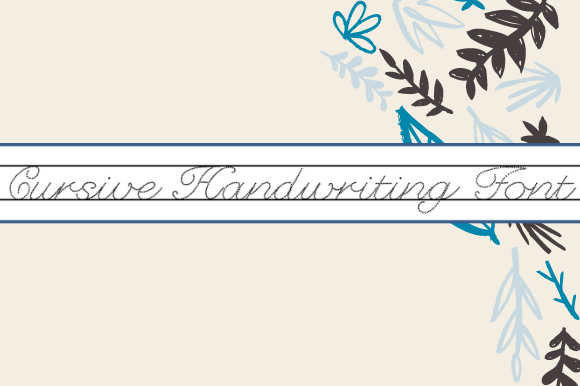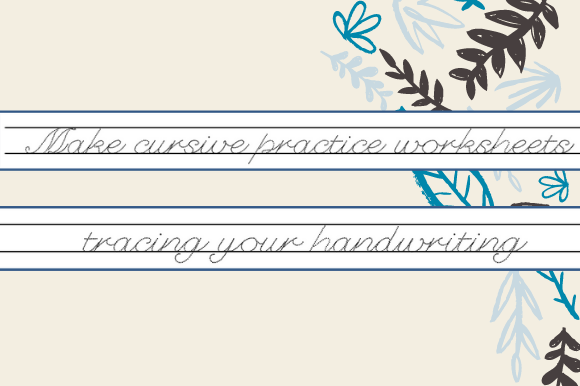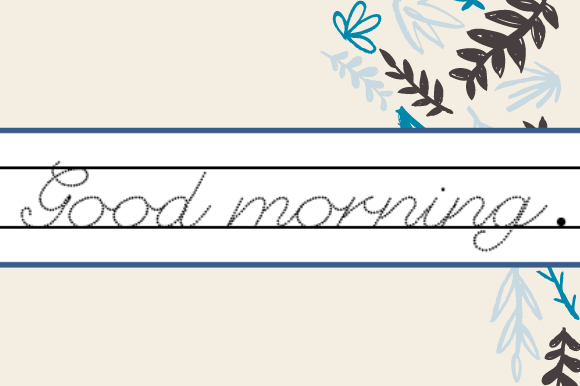
Cursive Handwriting Font
About Cursive Handwriting Font
“Cursive Handwriting”: Adding Delicacy and Style to Your Designs
Experience the charm of “Cursive Handwriting,” a font that exudes delicacy and style with its elegant script style. Perfect for a variety of applications, including product packaging, branding projects, magazine covers, social media graphics, weddings, and more, “Cursive Handwriting” brings a touch of sophistication to every design it graces.
The beauty of “Cursive Handwriting” lies in its delicate and stylish aesthetic. Its graceful curves and flowing lines evoke a sense of elegance, making it the perfect choice for projects that require a refined touch. Whether you’re creating a captivating magazine cover or designing stunning wedding invitations, this font adds a sense of sophistication that captivates your audience.
But “Cursive Handwriting” offers more than just visual appeal—it’s also highly versatile. Its script style lends itself perfectly to a variety of applications, allowing you to express your creativity in countless ways. Whether used as the focal point of your design or as a subtle accent, this font adds a touch of class that elevates your work to new heights.
From branding projects to social media graphics, “Cursive Handwriting” is the perfect companion for adding a touch of style to your designs. Its delicate appearance and stylish flair make it a standout choice for any project that demands a blend of elegance and sophistication.
So why settle for ordinary typography when you can elevate your designs with the timeless beauty of “Cursive Handwriting”? Unlock its potential today and let its elegant script font transform your creations into works of art that leave a lasting impression on your audience.